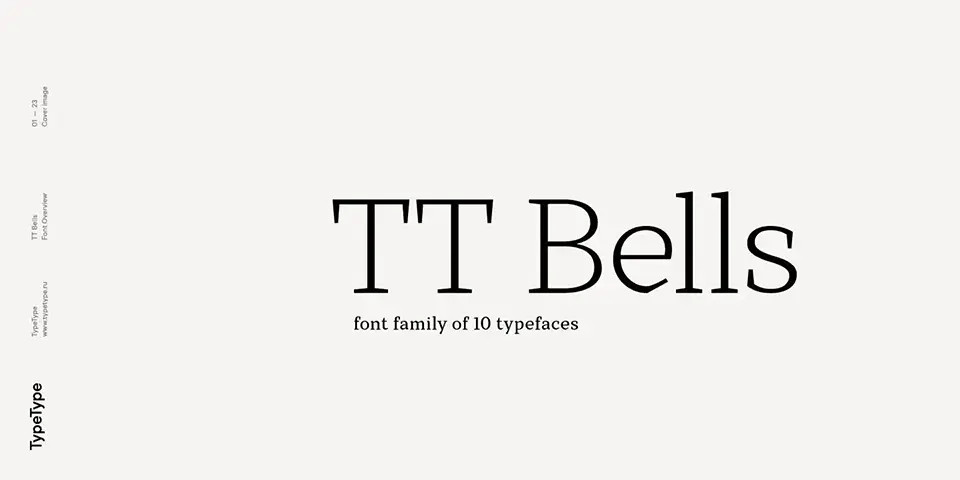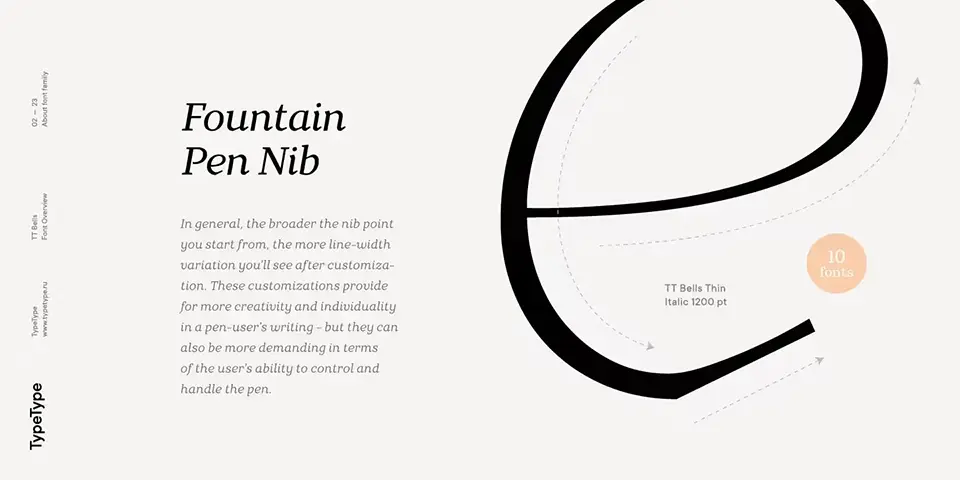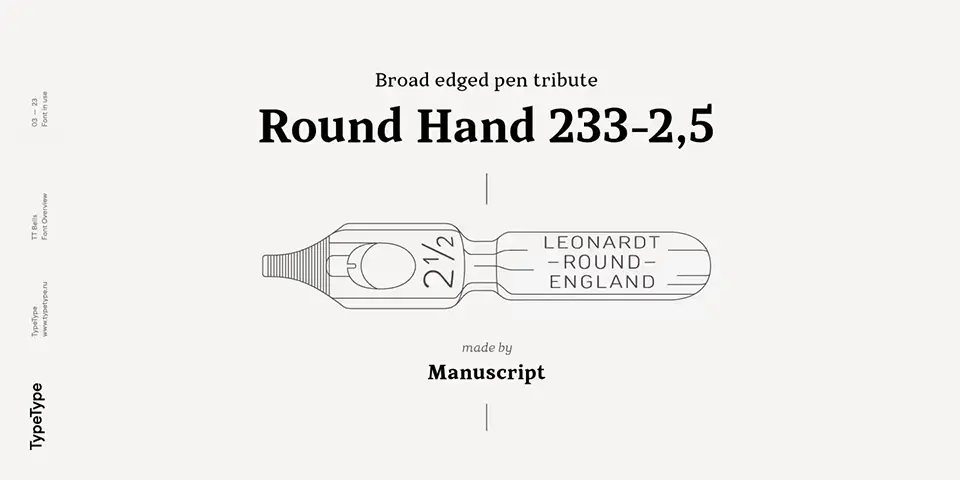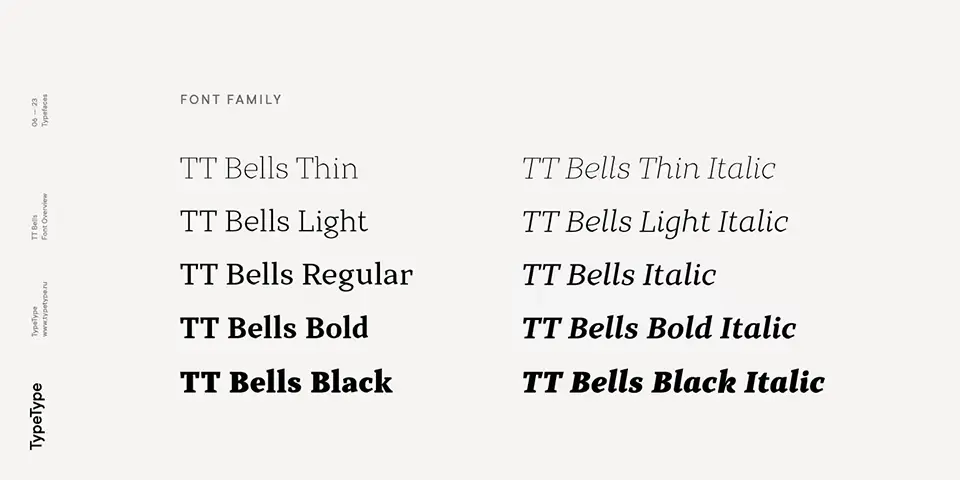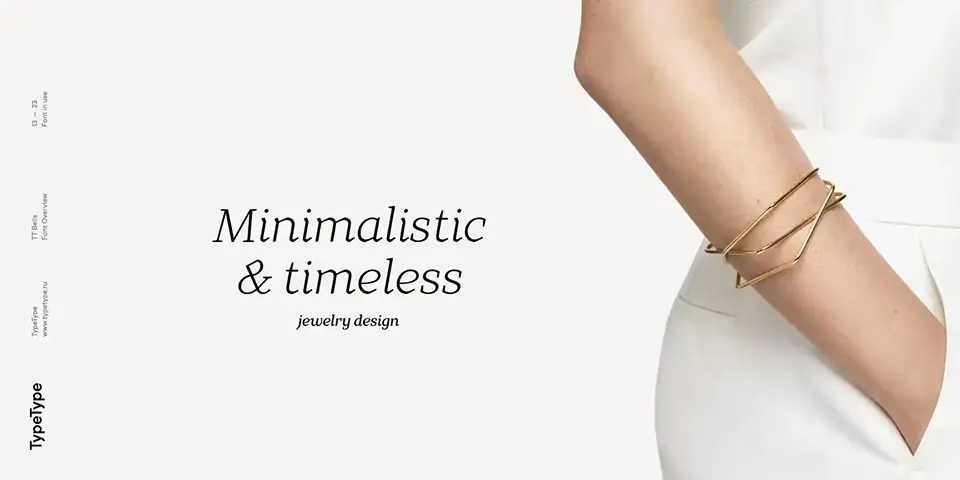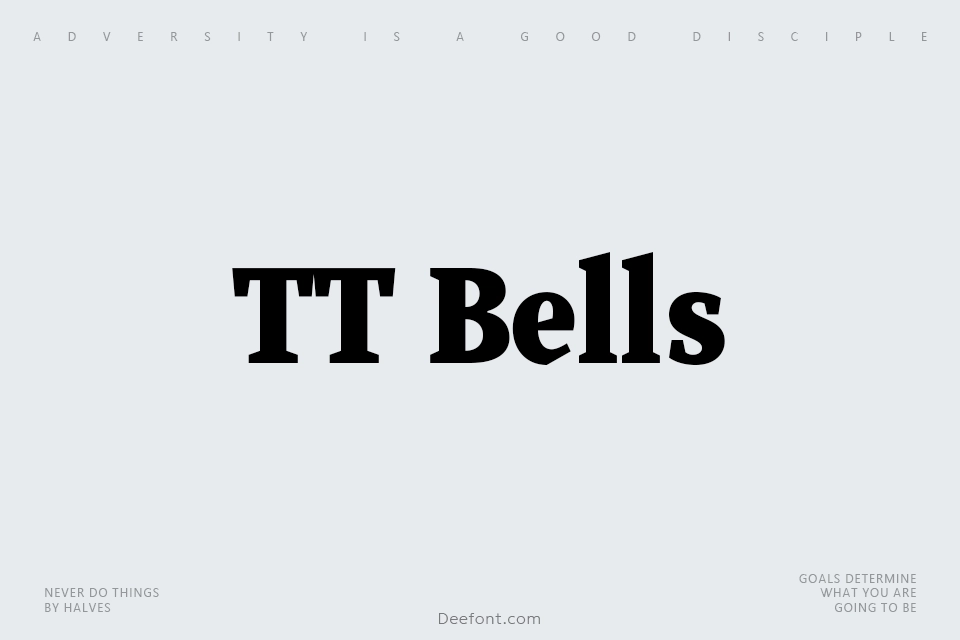
TT Bells Font Family
TT Bells is a sophisticated serif font family that masterfully blends the elegant softness of classical antiqua with contemporary geometric precision. Designed by TypeType Foundry, this versatile typeface features distinctive arrowheaded serifs and straight stroke terminals rooted in traditional broad nib calligraphy, combined with sharp modern design elements. Comprising five weights (Thin, Light, Regular, Bold, and Black) with matching italics, TT Bells excels in diverse applications from elegant headlines to expansive body text. The font includes comprehensive OpenType features for professional typographic control and maintains exceptional legibility across all sizes, making it ideal for luxury branding, editorial design, and sophisticated digital projects.